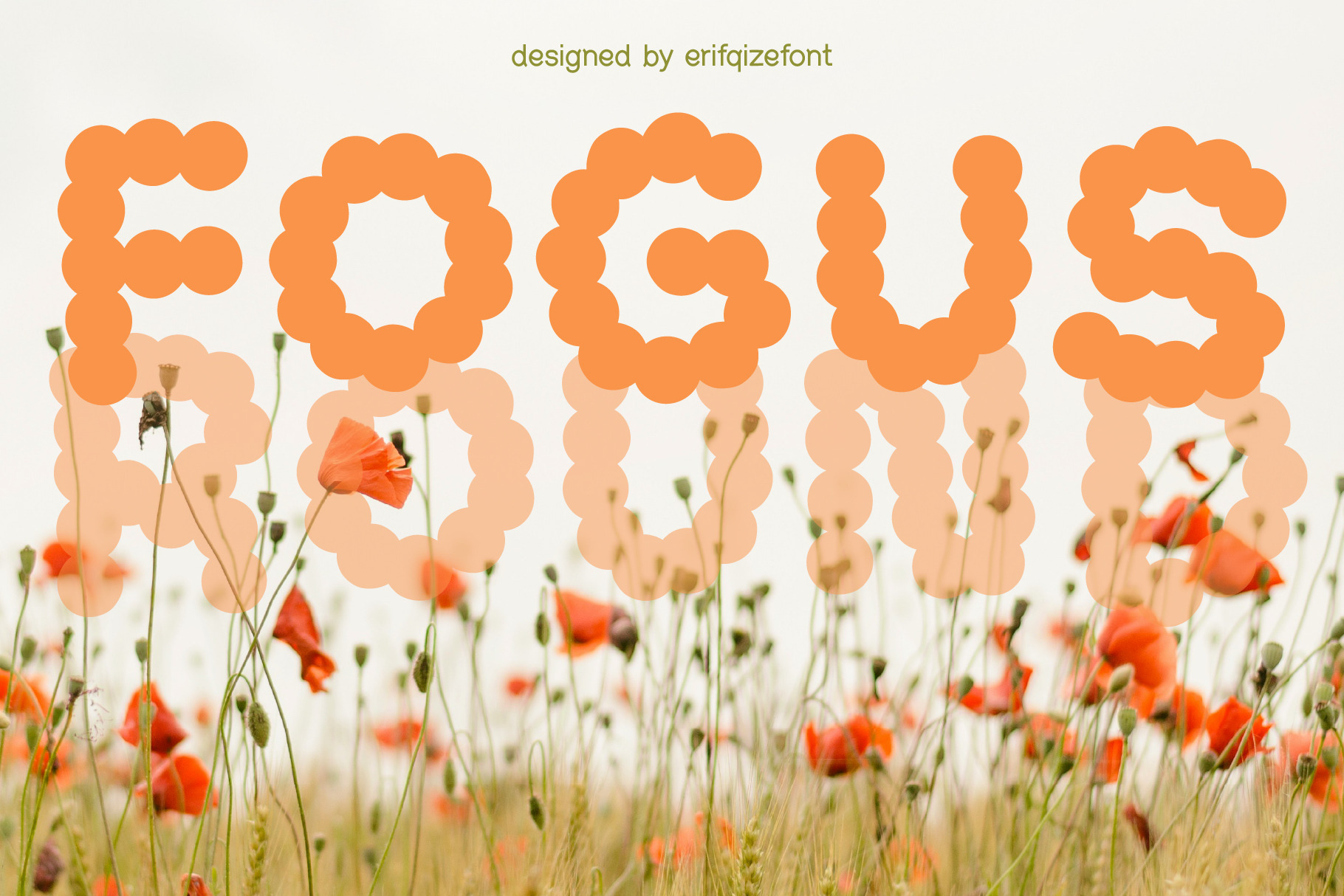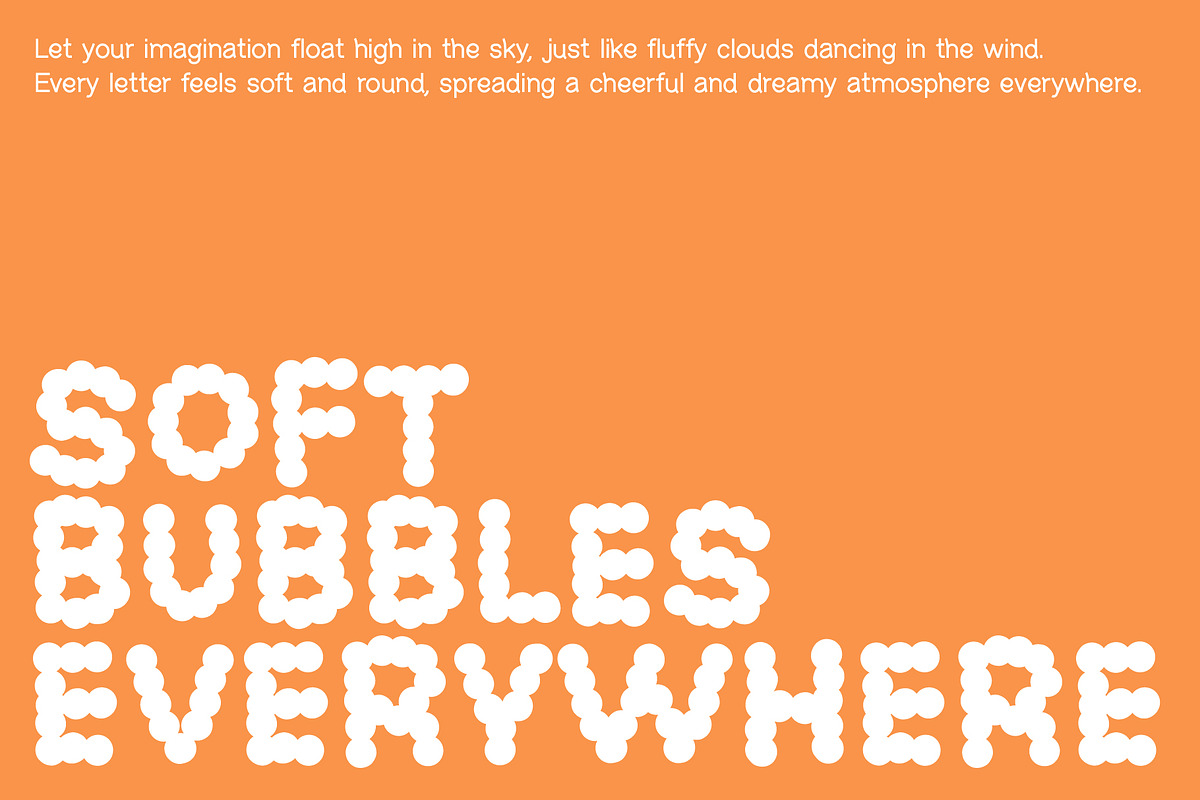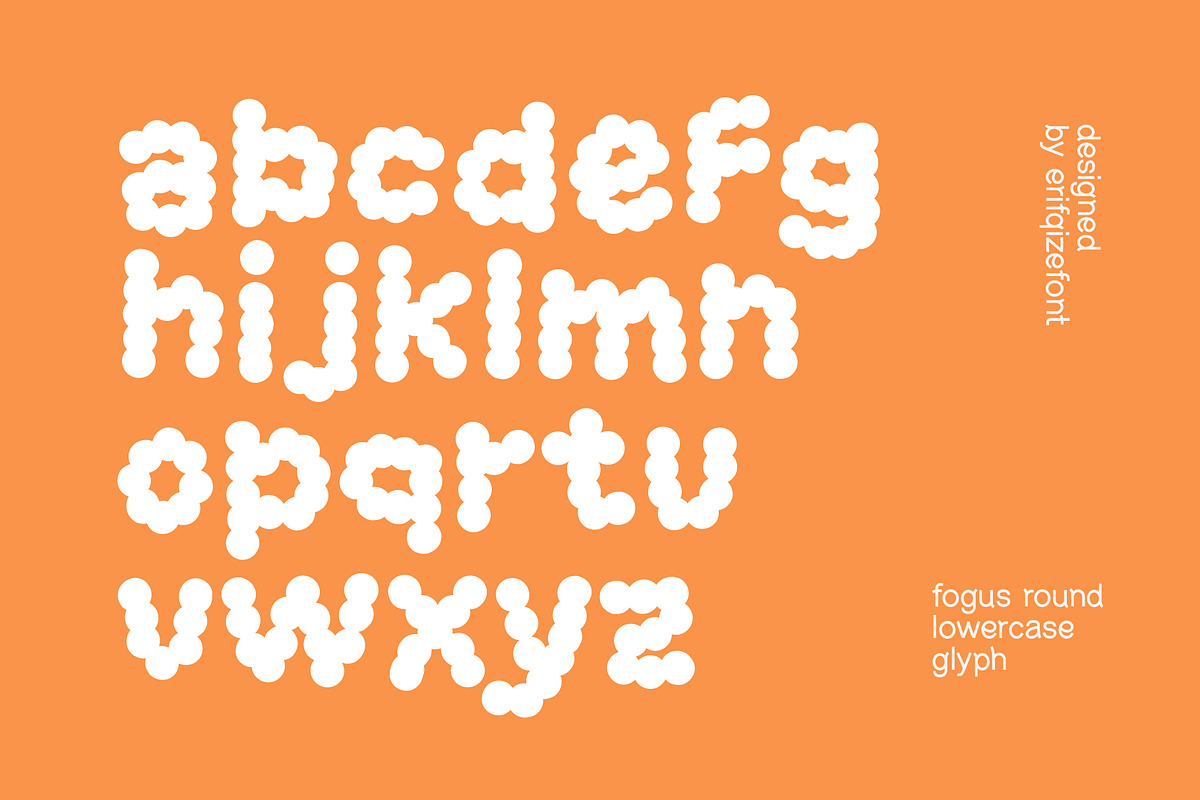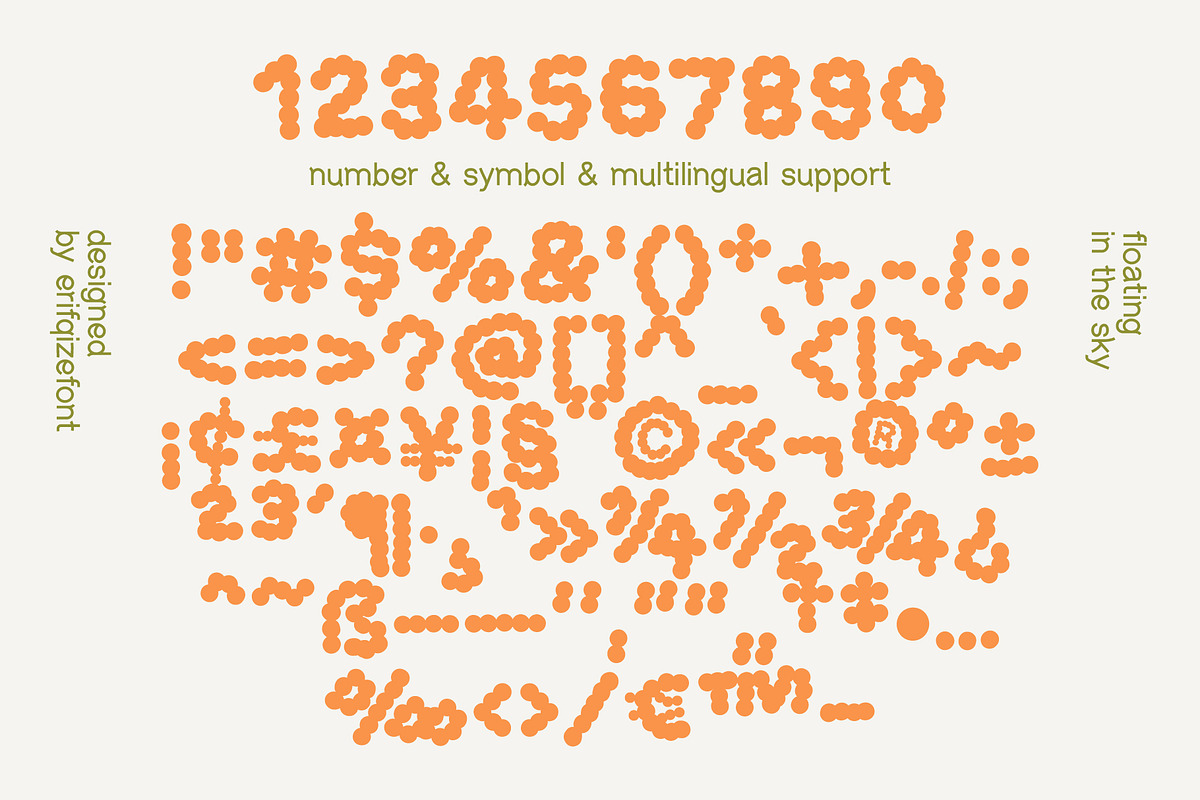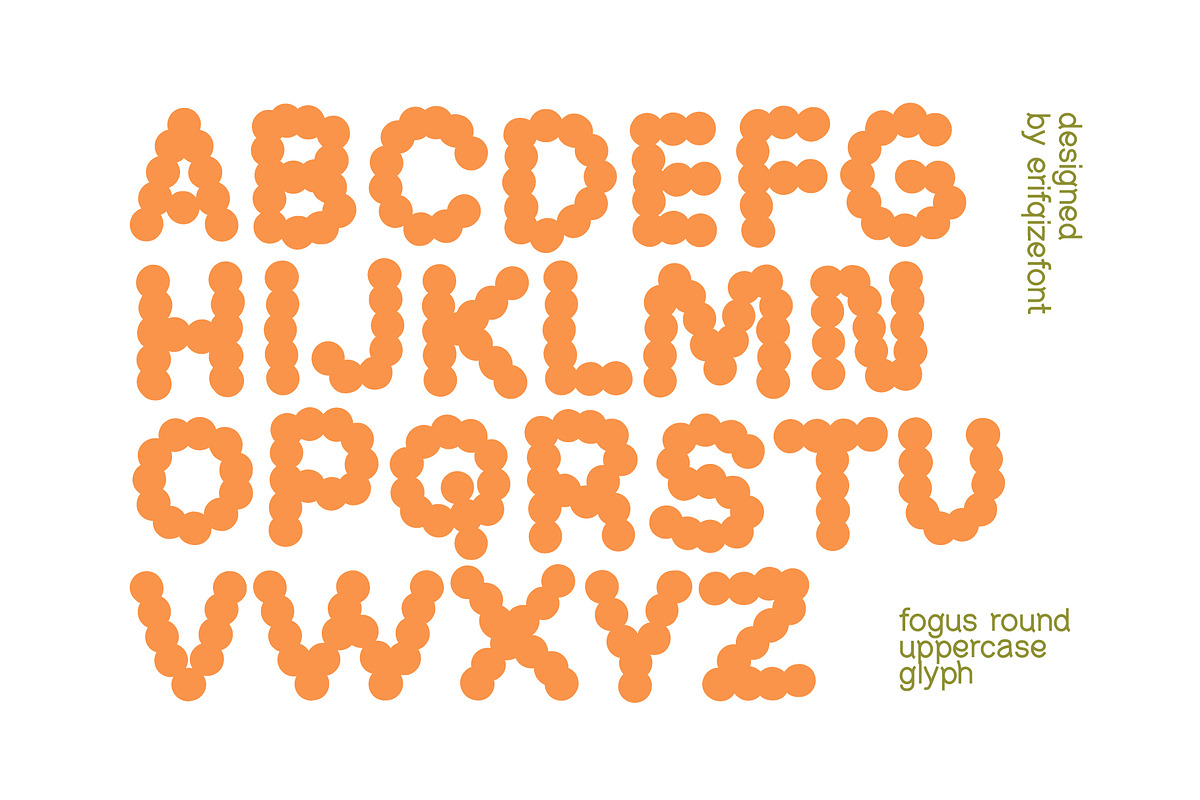
Fogus Round Playful Font
Fogus Round is a playful bubble display font built from soft circular forms that create a bold yet friendly personality. Each letter is constructed with rounded bead-like shapes, giving it a fun, groovy, and eye-catching appearance. The smooth curves and chunky structure make this typeface perfect for headlines, posters, logos, branding, packaging, children’s designs, and creative projects that need a cheerful and standout look.
Fogus Round blends retro charm with modern simplicity, making it versatile for both nostalgic and contemporary designs. Its unique dotted construction adds character while maintaining readability, ensuring your typography feels distinctive, warm, and expressive.